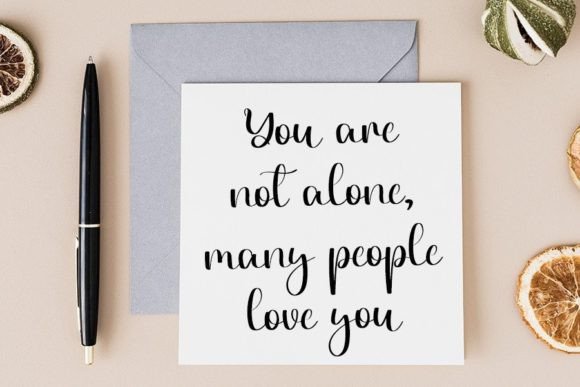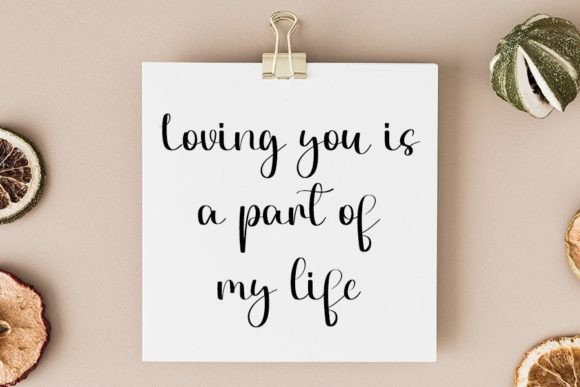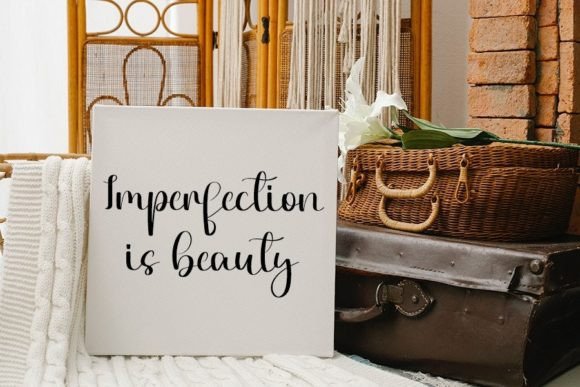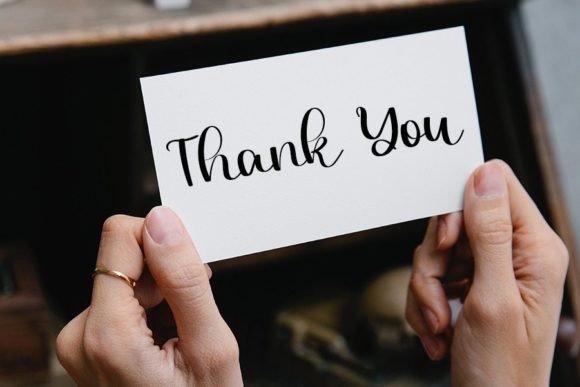
Memories Font
About Memories Font
**Memories** is a font that effortlessly combines elegance with simplicity, creating a design that is both classic and timeless. Its neat and beautiful handwritten style is characterized by an elegant touch, making it perfect for a wide range of creative projects. From invitations to branding, social media posts to quotes, **Memories** adds a touch of sophistication to every design it graces.
One of the standout features of **Memories** is its distinct and timeless style. Its clean lines and graceful curves give the font a sense of refinement, making it a versatile choice for various applications. Whether used in print or digital media, **Memories** brings an air of sophistication to your projects, making them visually appealing and memorable.
The font’s elegance is further emphasized by its handwritten quality. The natural flow of the letters and the seamless connection between characters create a harmonious composition. **Memories** exudes a sense of effortlessness, making it ideal for conveying a message of simplicity and sophistication in your designs.
**Memories** is more than just a font; it’s an experience. It evokes a sense of nostalgia and sentimentality, making it perfect for projects that aim to create an emotional connection with the audience. Its timeless appeal ensures that your designs will remain relevant and captivating for years to come.
By incorporating **Memories** into your favorite projects, you’re not just adding a font; you’re infusing them with a touch of elegance and sophistication. Whether used for invitations, quotes, logos, or any other creative endeavor, **Memories** elevates your designs, making them truly spectacular and unforgettable.